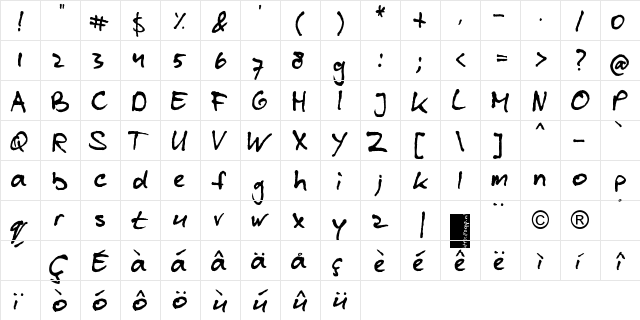
blzee Regular
Design Context for blzee Typeface
blzee is a composed and adaptable typeface that performs quietly and consistently across a wide range of design contexts.